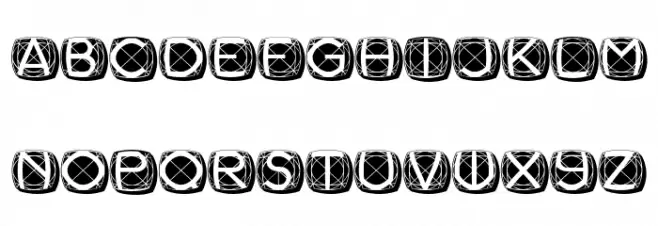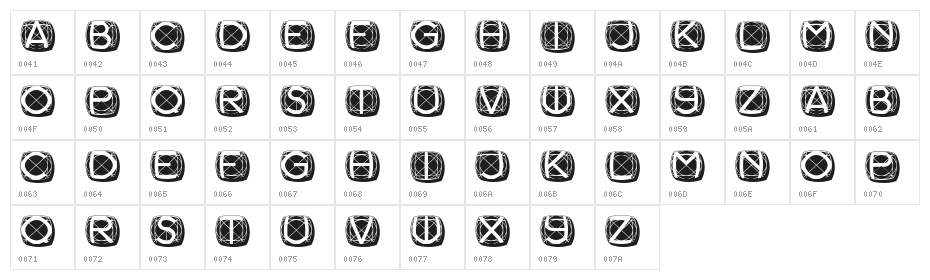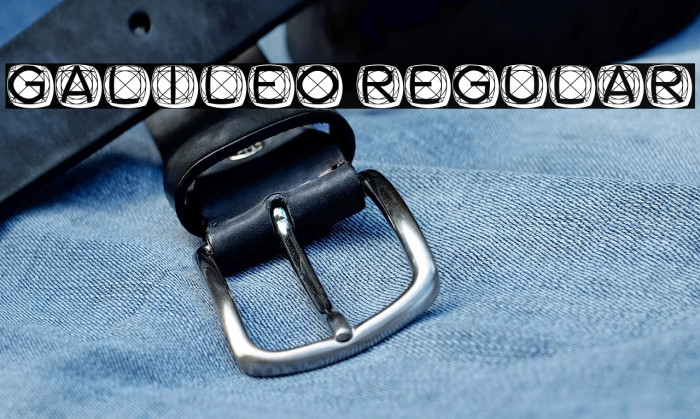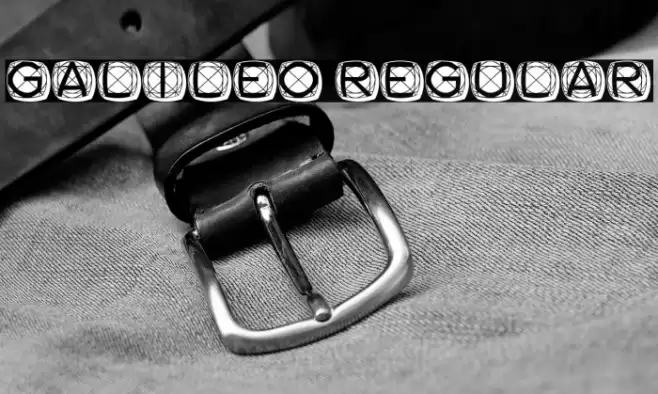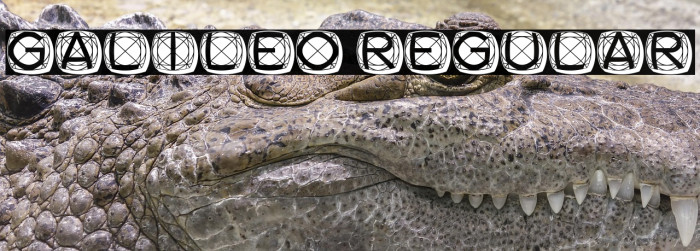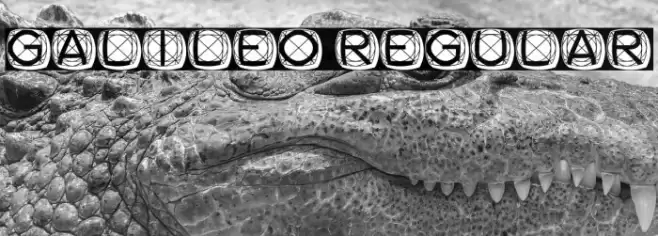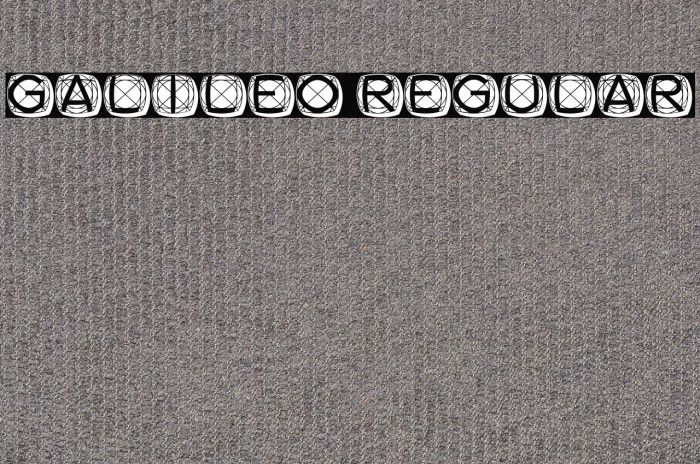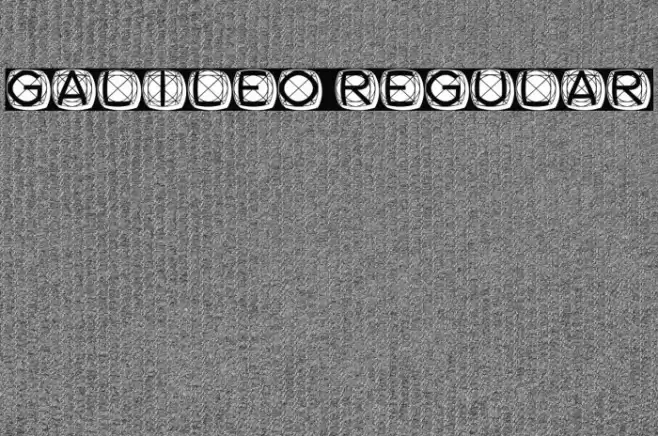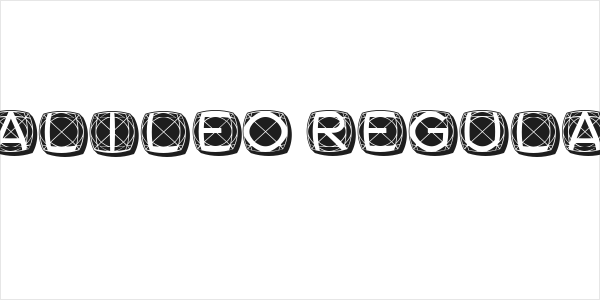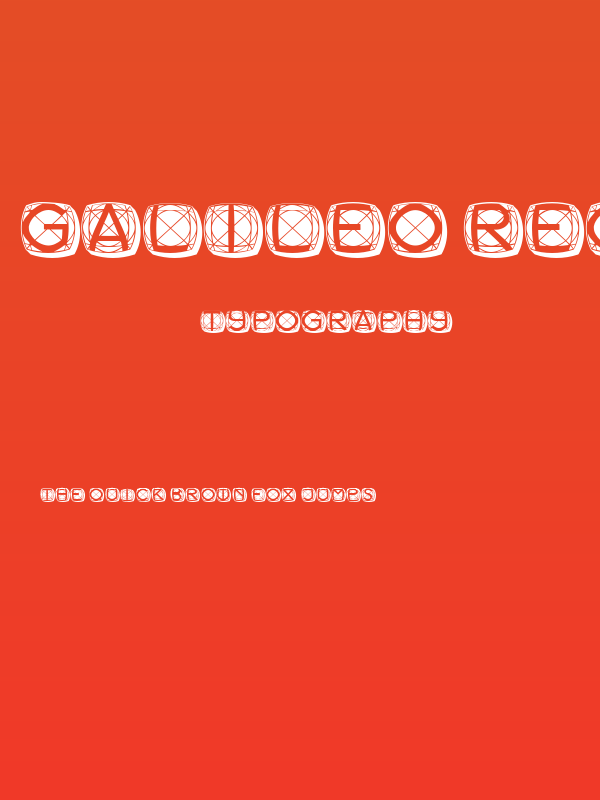
Galileo Regular Font
Galileo Regular Description
This font features a unique and intricate design where each character is enclosed within a rounded square. The letters are constructed with a series of intersecting lines, creating a complex geometric pattern. The overall appearance is bold and eye-catching, with a modern and futuristic aesthetic. The characters are evenly spaced within their enclosures, providing a consistent and structured look. This design is particularly striking due to its high contrast between the thick lines of the letters and the thin intersecting lines, which add depth and texture.
| Proposed Projects | Ideal for modern branding, futuristic designs, tech-related projects, and eye-catching headlines. |